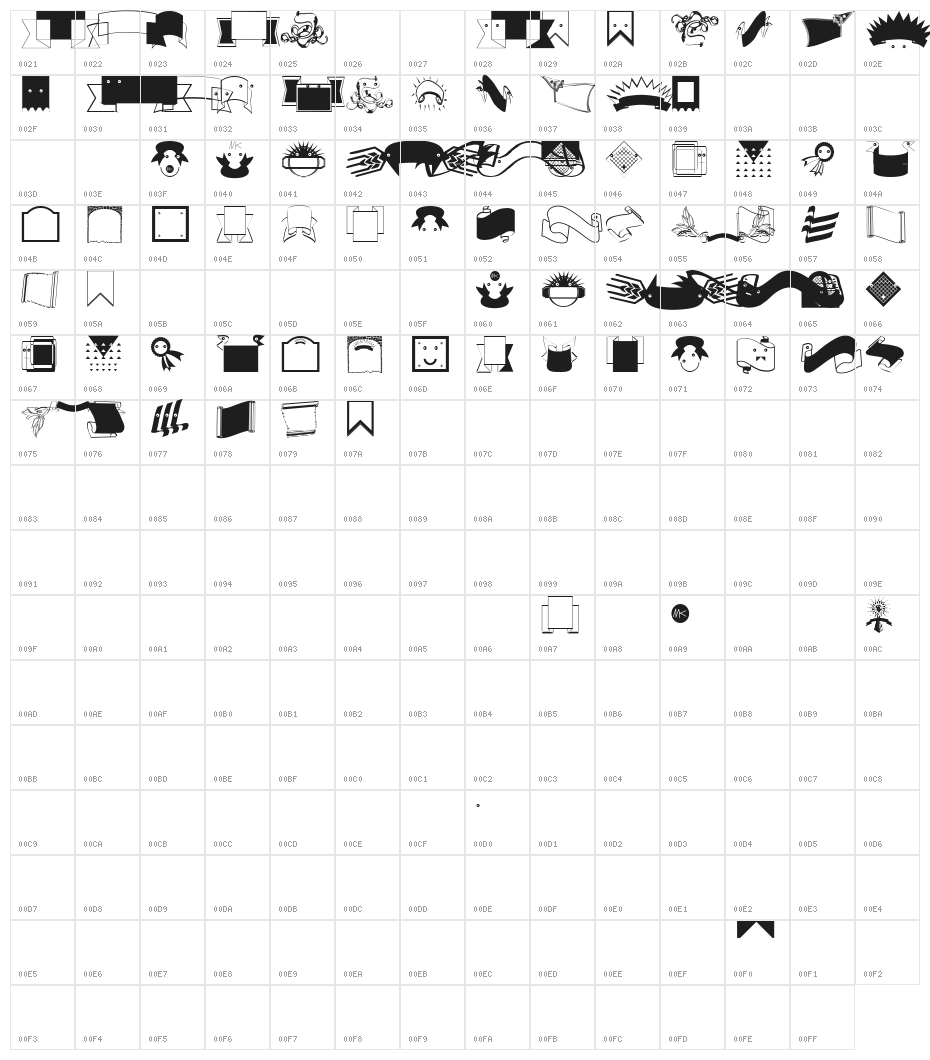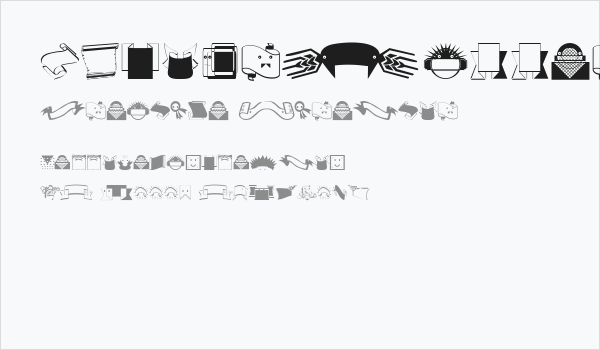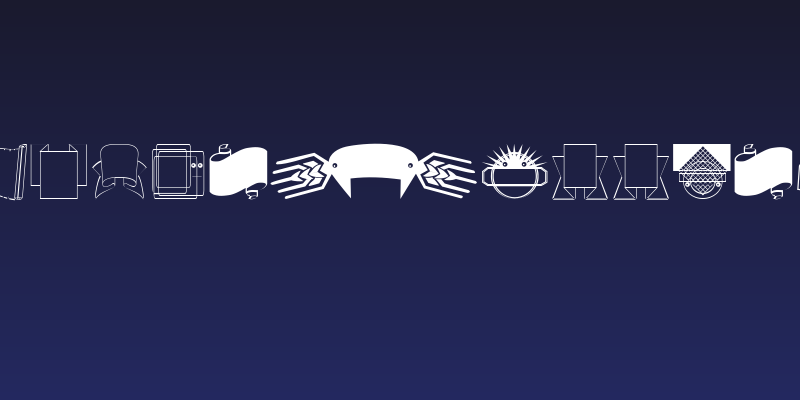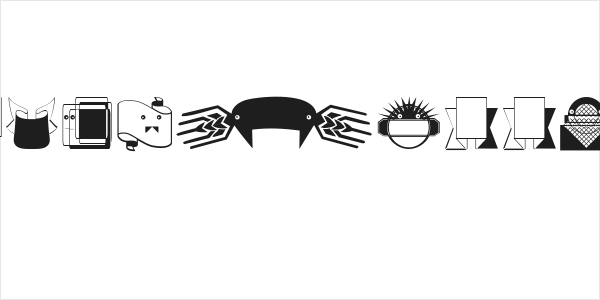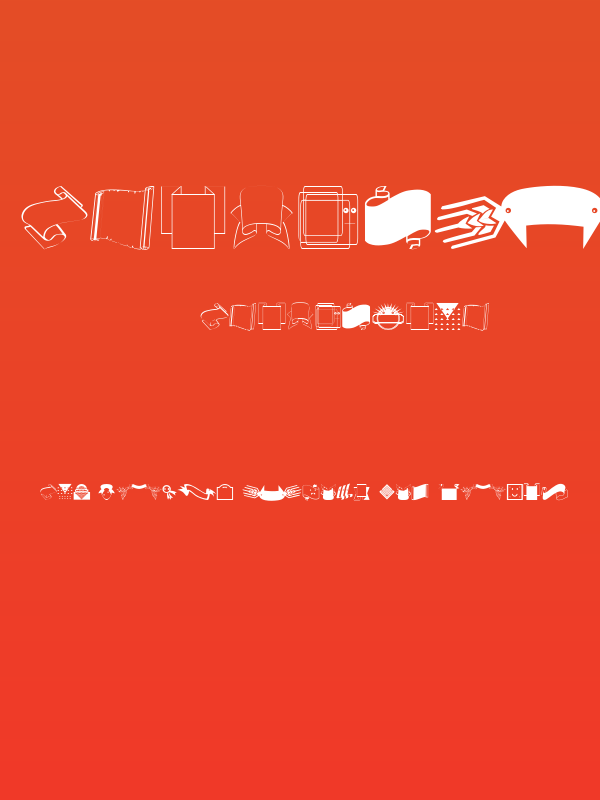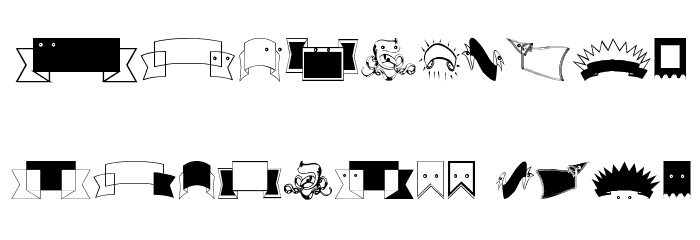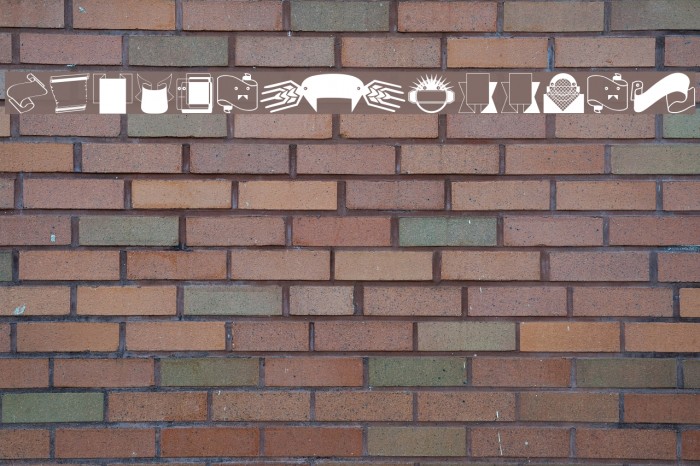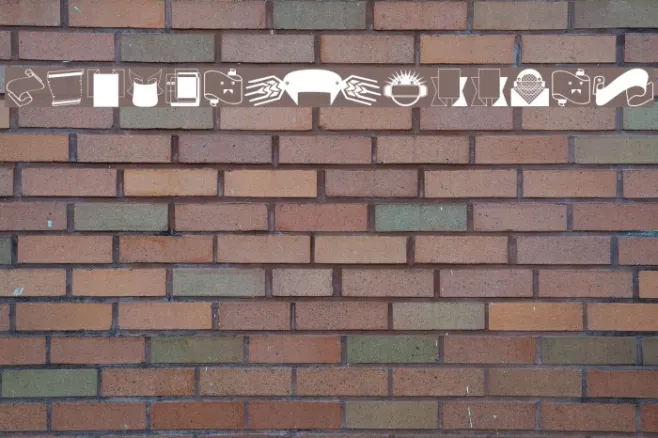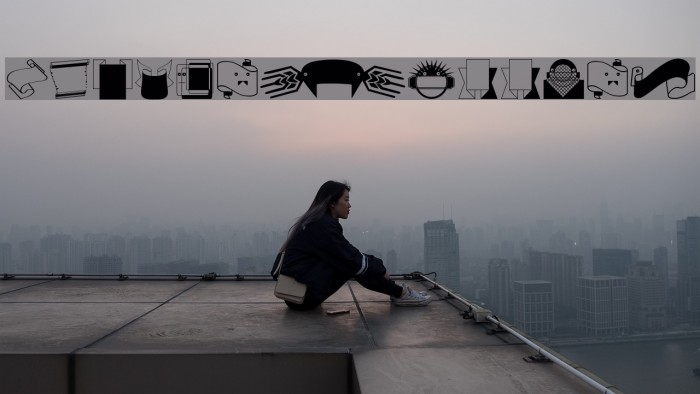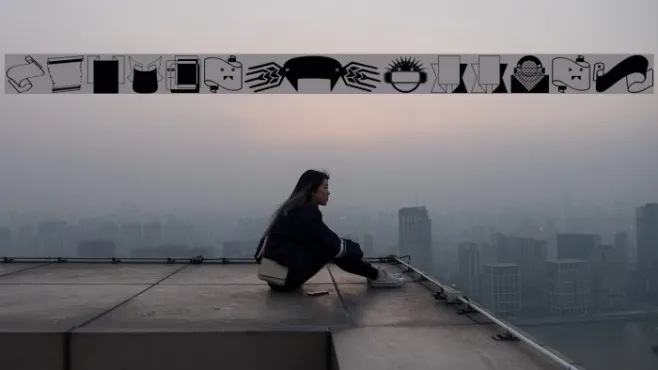
TypogrBanners Font
TypogrBanners Description
A decorative dingbat font featuring a variety of illustrated banners, ribbons, badges, and ornamental shapes in both filled and outline styles. Each glyph is a unique graphic element rather than a traditional letterform, suitable for embellishing designs.
| Overall Style | Decorative, playful, illustrative |
| Use Case | Ornamental elements, embellishments, graphic accents |
| Proposed Projects | Event invitations, certificates, posters, scrapbooking, digital stickers, social media graphics, and label designs. |